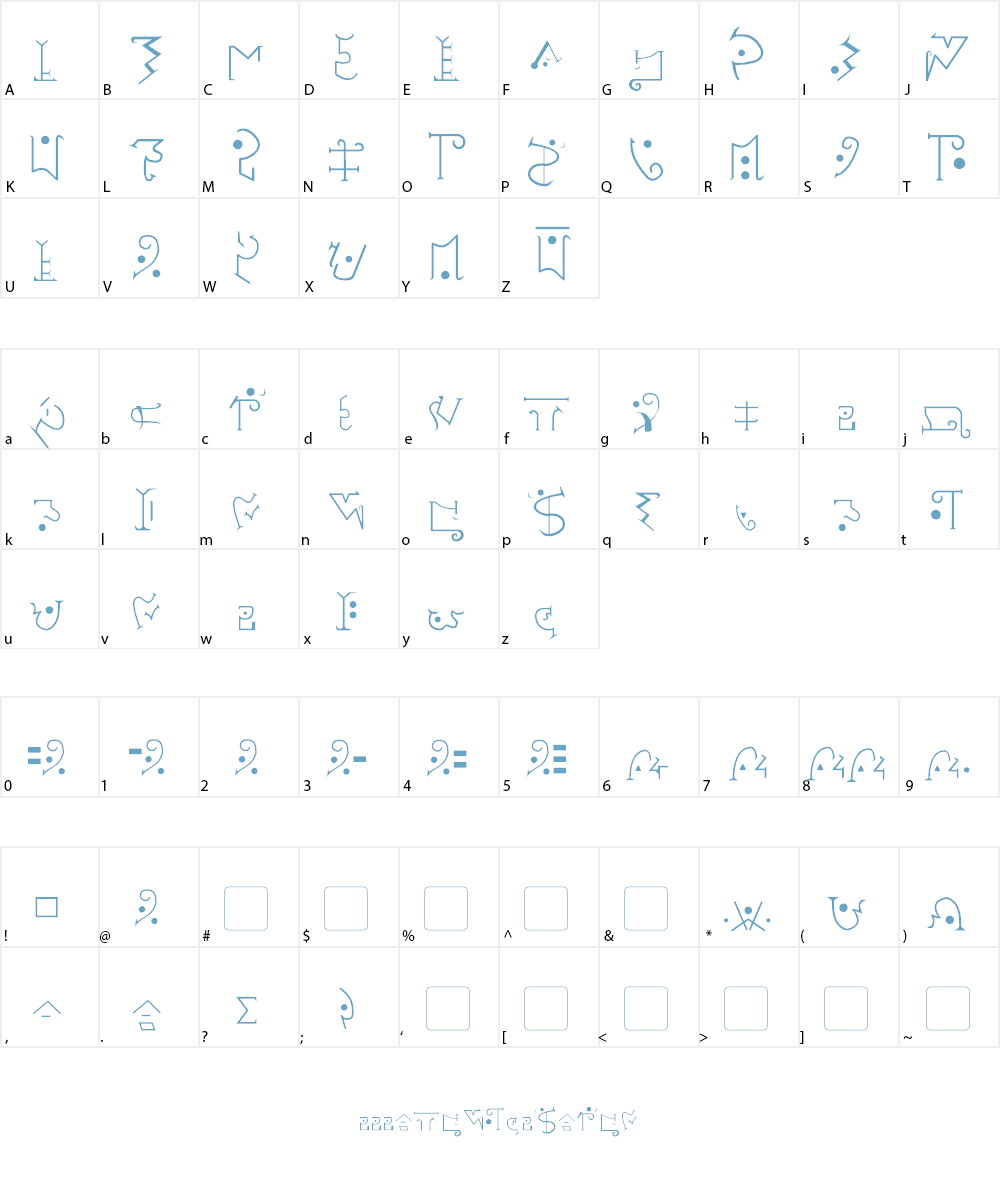
Giedi Predacon is an updated of Jim Sorenson’s Predacon Script font (with permission). The face is based on the computer writing found on Predacon computers in the Beast Wars television show. Includes all known canonical symbols, along with Maximal and Predacon symbols replacing the left and right brackets, respectively.